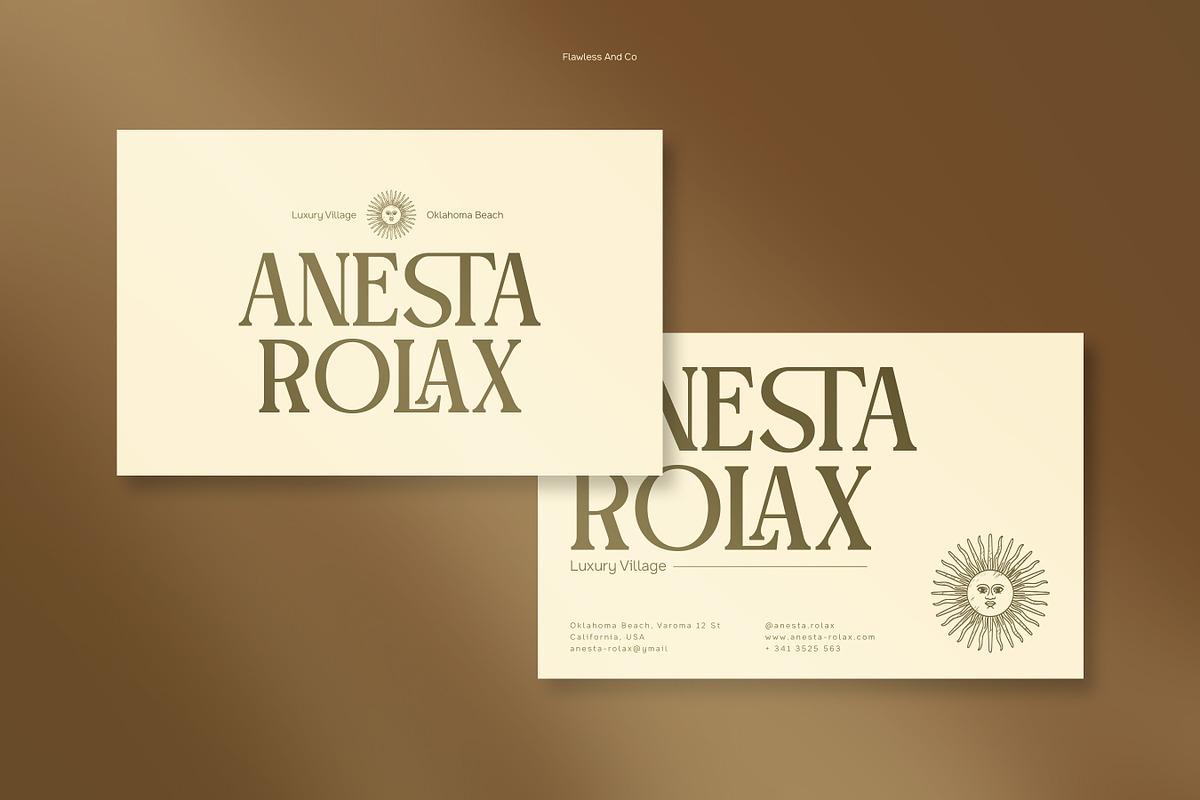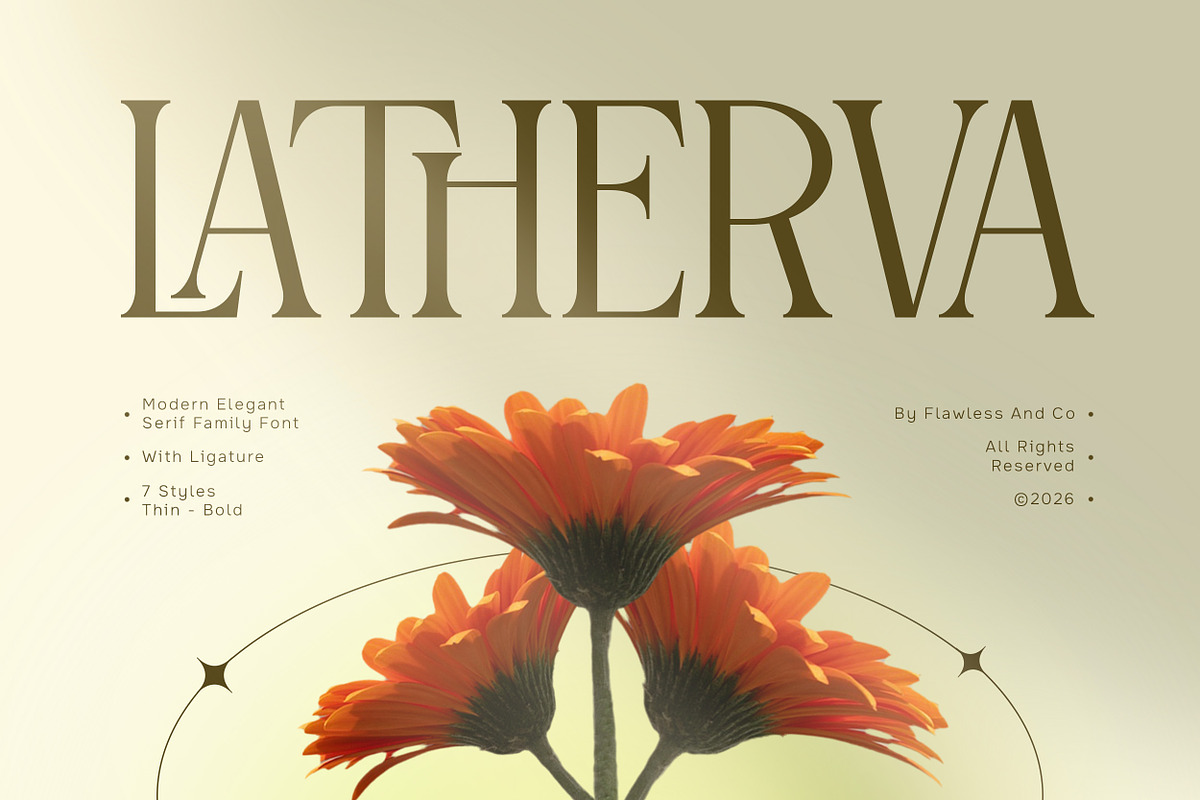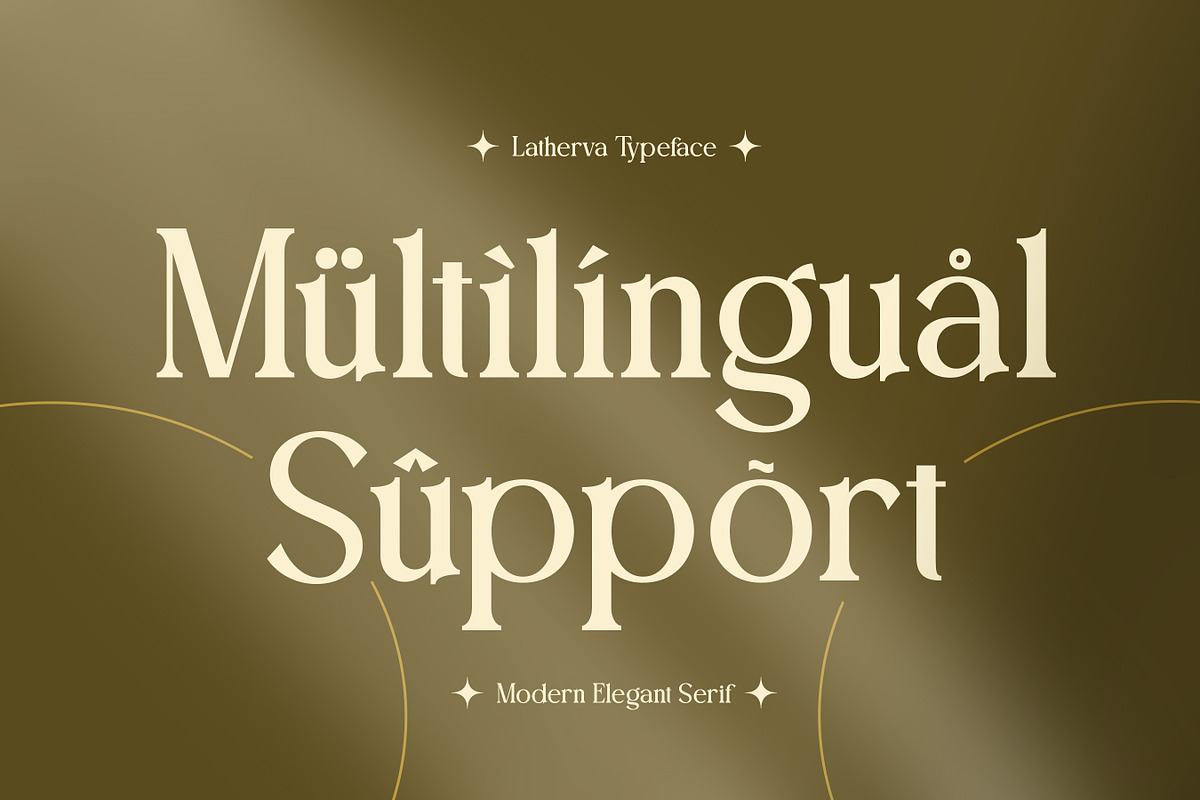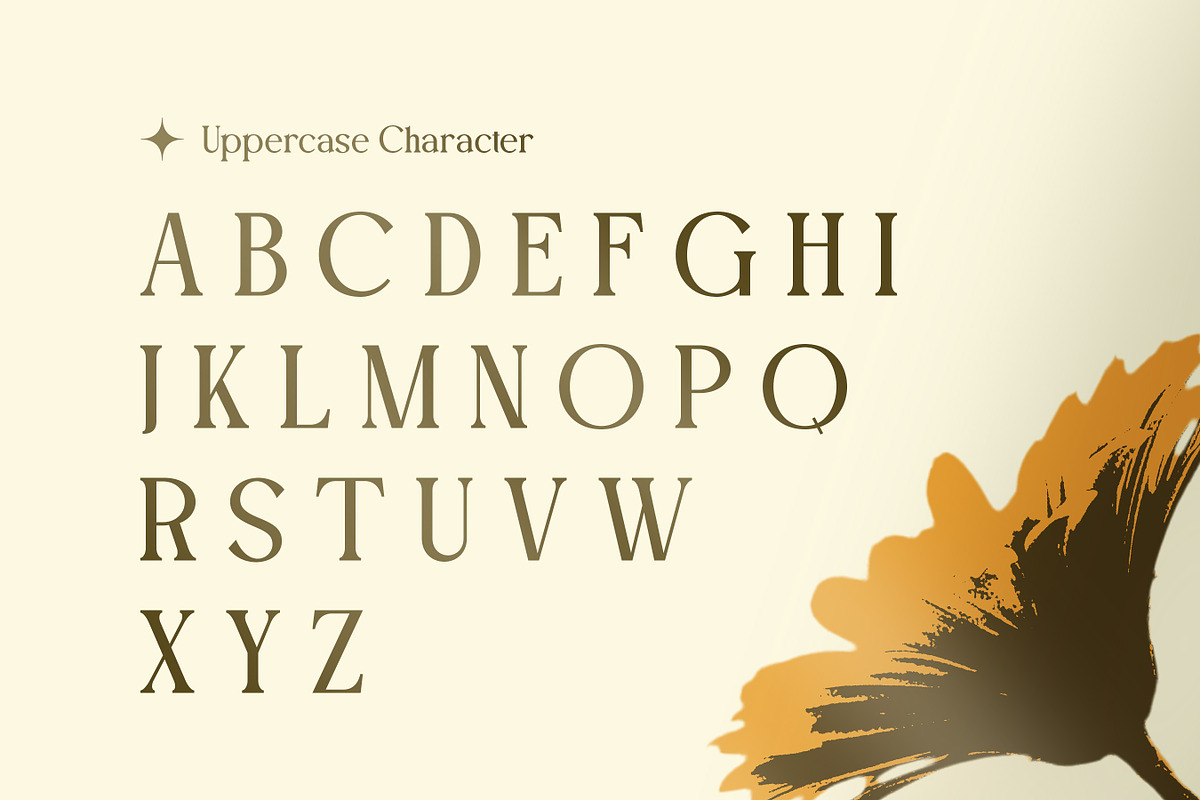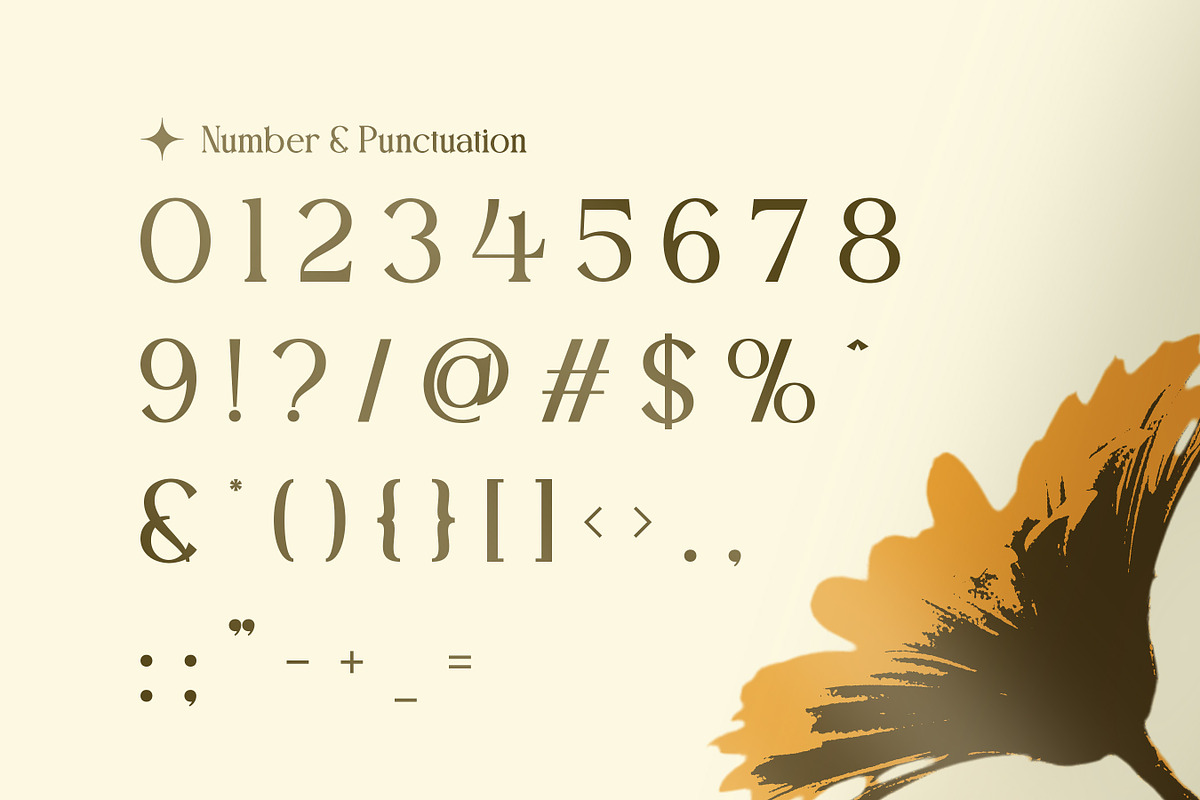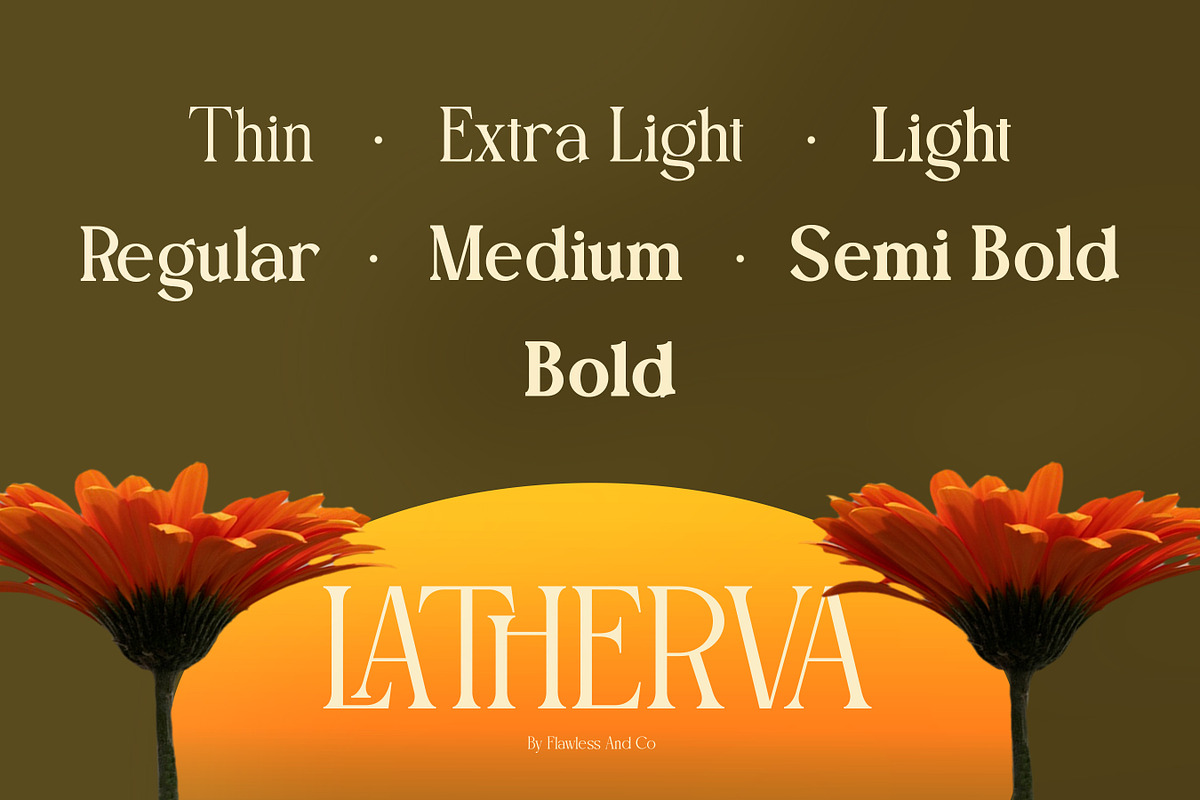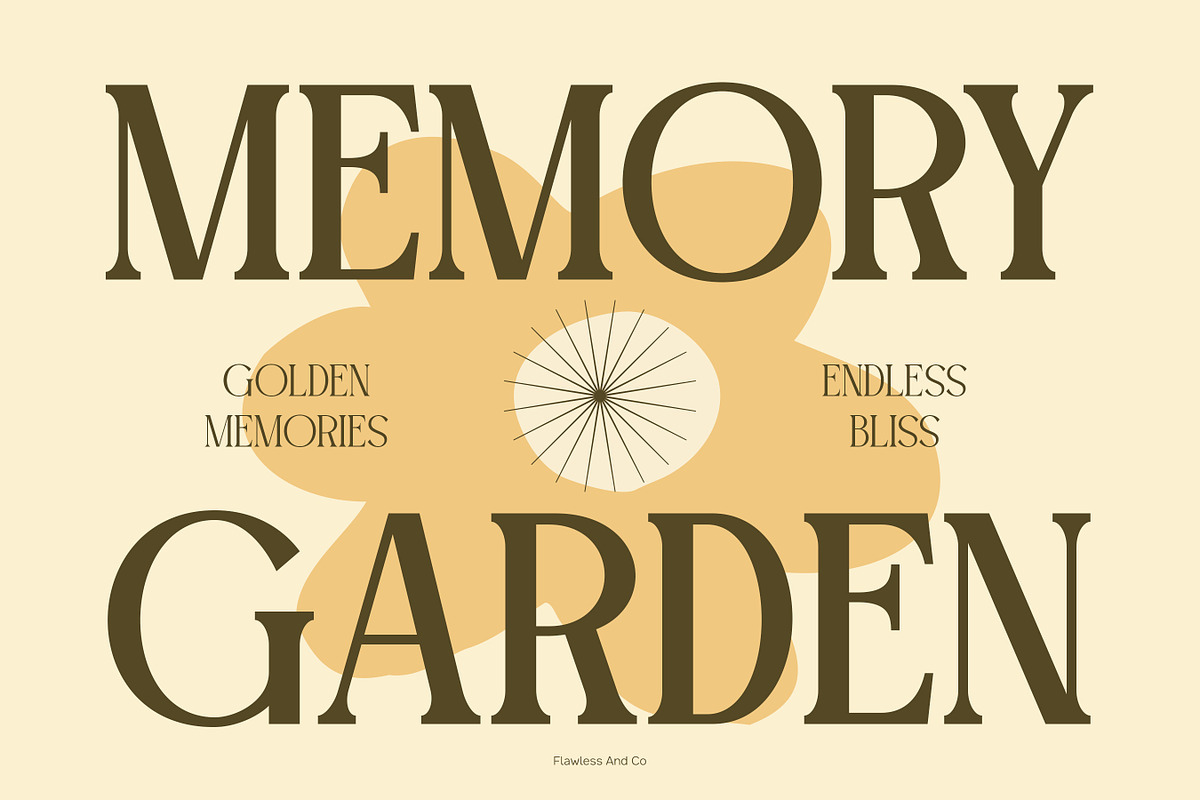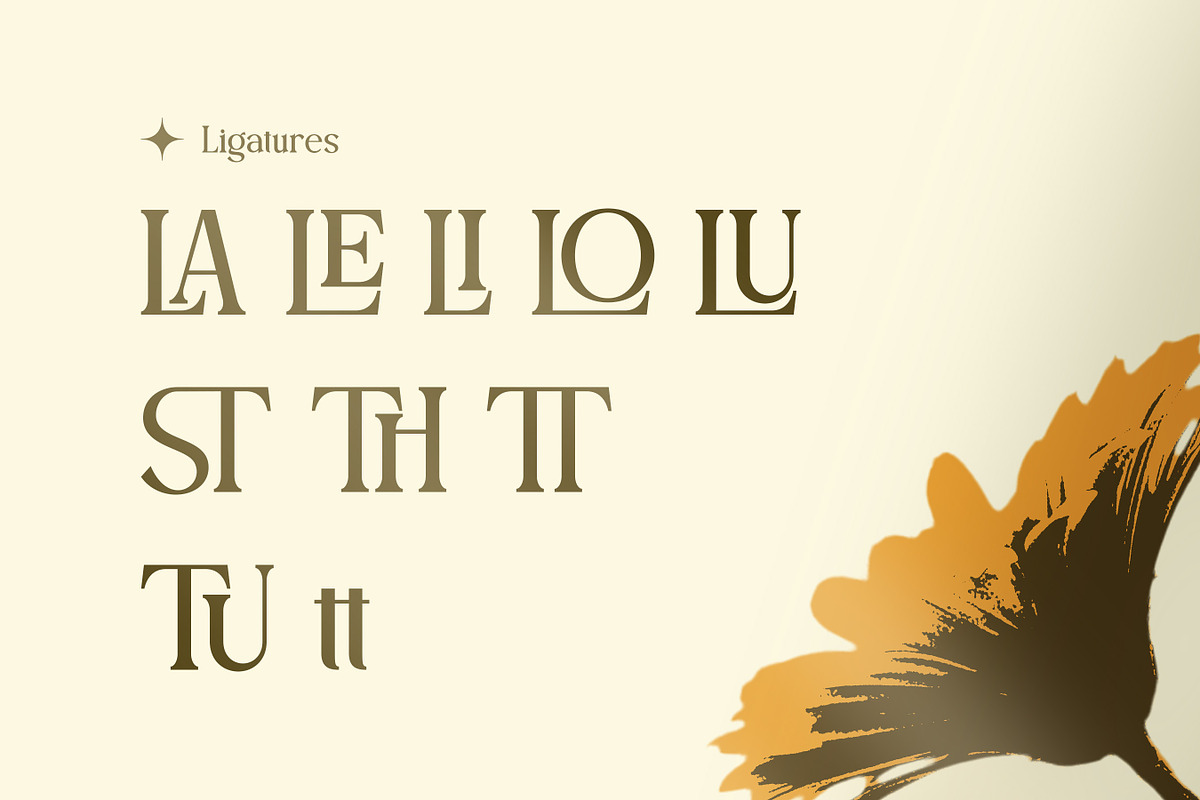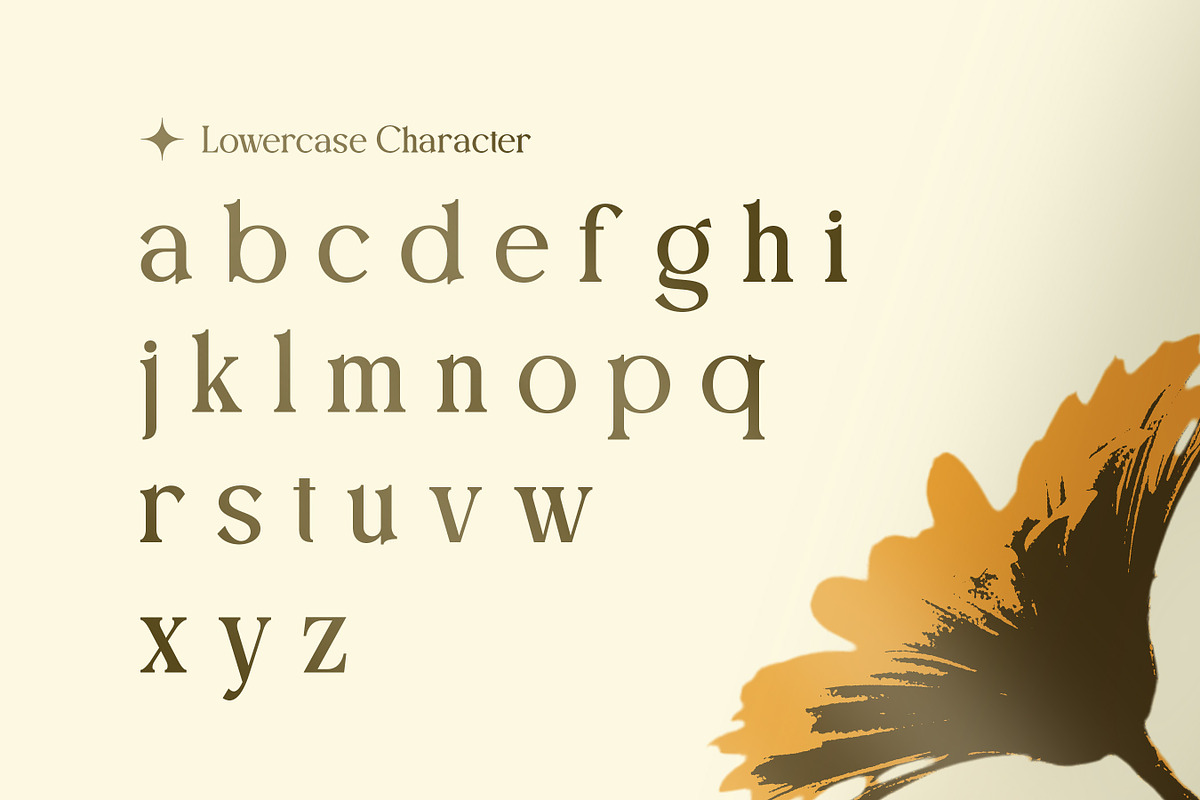
Latherva - Elegant Serif Family Font
Latherva is an elegant serif family crafted for designers who appreciate timeless beauty, refined details, and exceptional versatility. Combining graceful serif forms with balanced proportions and contemporary refinement, Latherva delivers a sophisticated type system that feels equally at home in luxury branding, editorial publishing, and modern visual identities. Every character is carefully designed to create a seamless blend of elegance, readability, and lasting style.
Alternates & Ligatures
Who Should Use Latherva?
Latherva is ideal for designers, creative studios, publishers, luxury brands, and entrepreneurs looking for a refined serif family that adapts beautifully across branding, editorial, packaging, and digital media. It's especially suited for projects that require elegant typography with a cohesive and premium visual identity.
Suitable For:
Luxury branding and visual identity
Editorial and book design
Fashion and beauty campaigns
Logo and wordmark creation
Premium packaging and product labels
Boutique and lifestyle branding
Wedding invitations and stationery
Professional typography systems